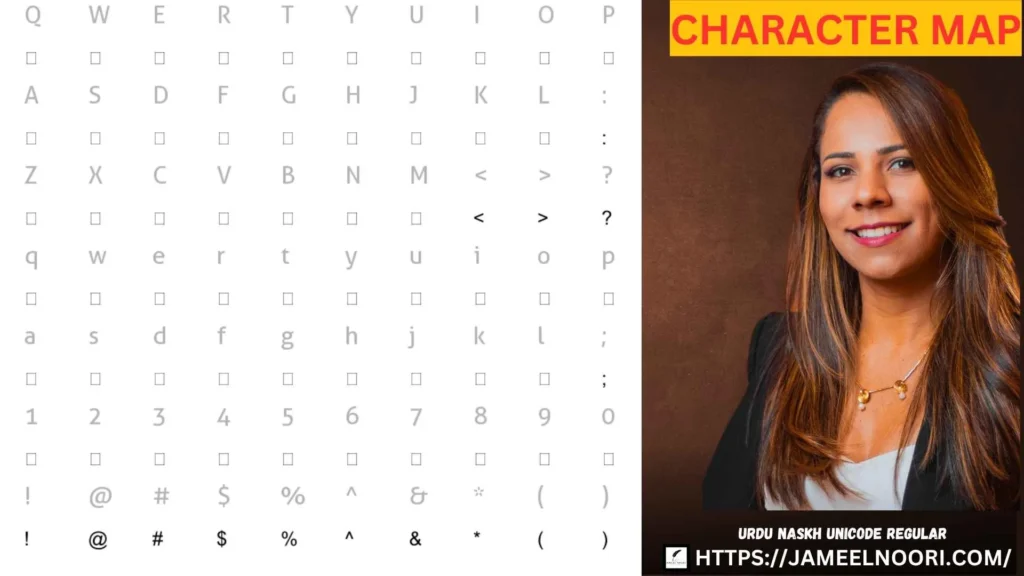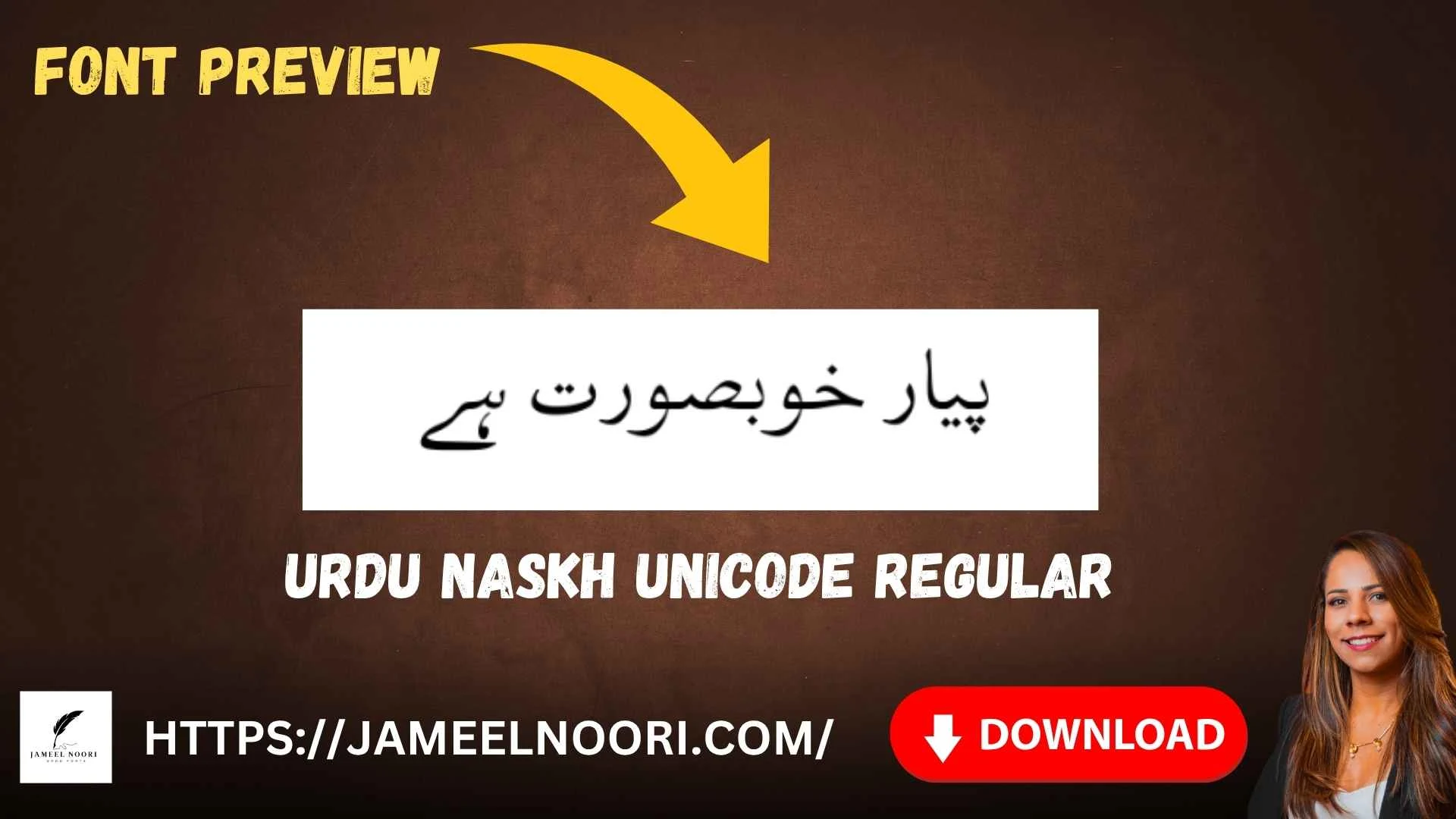
The Urdu Naskh Unicode Regular Font is a clean, simple, and highly functional TrueType Urdu font that represents the traditional Naskh style in a digital form.
This font was developed for maximum compatibility and smooth rendering across multiple systems, making it ideal for Urdu typing, document design, and website text.
- Unicode Support – Perfect Urdu character rendering across all systems.
- Classic Naskh Style – Ideal for books, print, and digital typography.
If you want an authentic Urdu Naskh font that looks professional and loads fast, Urdu Naskh Unicode Regular is a solid choice.
Unlike heavy calligraphic fonts, this one keeps your Urdu text clean, clear, and perfectly aligned, especially on web pages and PDF documents.
The Unicode encoding means your Urdu text will remain intact across browsers, mobile devices, and even exported formats like PDFs or Word files — a must-have for writers and developers dealing with multilingual content.
Design & Appearance
Urdu Naskh Unicode Regular presents a minimalist and functional appearance.
It may not be overly decorative, but that’s exactly why it works so well in modern contexts — whether you’re building an Urdu website or publishing educational material.
Its balanced letterforms and consistent spacing give a natural Urdu flow, making it easier to read long paragraphs.
Because it’s Unicode-based, it supports proper Urdu ligatures, dots (nuqaat), and vowel marks (zair, zabar, pesh) — ensuring professional-quality Urdu typography.
Urdu Naskh Unicode Regular Font is a trusted and lightweight Urdu TrueType font, perfect for users who need a reliable Naskh-style typeface that works across modern systems.